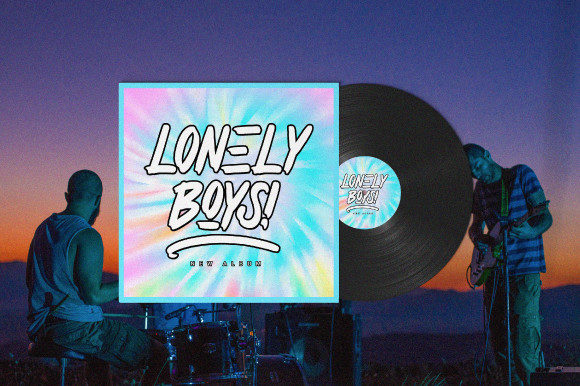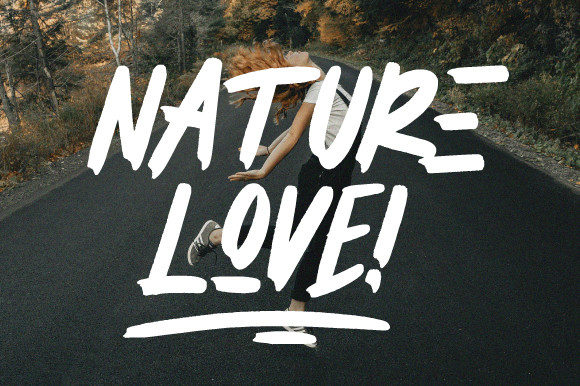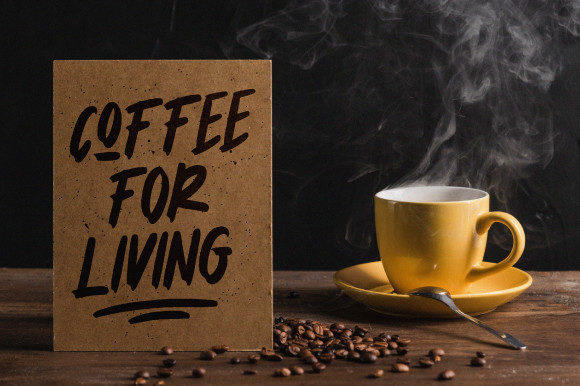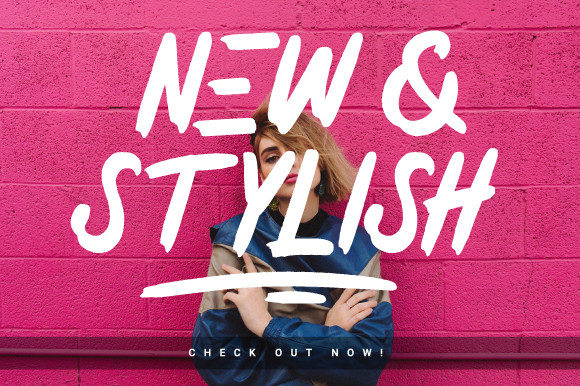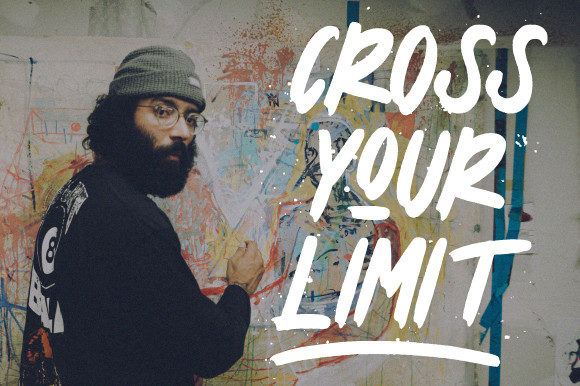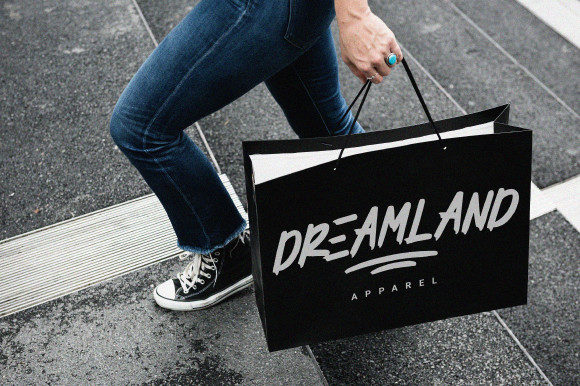
Unleash Your Creativity with Belion Sadge Font: A Brush Font for Stunning Designs
In the realm of digital design, fonts play a pivotal role in conveying messages, evoking emotions, and creating aesthetic appeal. For designers and crafters looking to elevate their projects with a touch of elegance and style, the Belion Sadge font emerges as a remarkable choice. This article delves into the features, benefits, and creative applications of the Belion Sadge – Brush Font, a versatile tool designed to transform your designs into captivating visual experiences.
What is Belion Sadge Font?
Belion Sadge is a fast, textured display font engineered to infuse designs with a stylish and dynamic look. Its unique brush font characteristics make it stand out, offering a fresh alternative to conventional fonts. Whether you’re working on digital projects or print materials, Belion Sadge brings a distinctive flair that can make your creations pop.
Key Features of Belion Sadge Font
- Textured Display Font: The Belion Sadge font boasts a textured appearance that adds depth and a tactile feel to your designs, making them more engaging and visually appealing.
- Swash and Alternative Characters: One of the font’s most creative features is its inclusion of swashes and alternative characters. These elements allow designers to experiment with various stylistic approaches, enhancing the creative potential of their projects.
- Versatility: Belion Sadge is not limited to a specific design genre. Its versatility makes it suitable for a wide range of applications, from elegant posters and eye-catching merchandise to compelling social media posts.
Creative Applications of Belion Sadge Font
The Belion Sadge font is incredibly versatile, making it an excellent choice for various design projects. Here are some of the creative ways you can utilize this brush font:
- Social Media Posts: Elevate your social media presence with stylish and engaging posts that capture the attention of your audience. The Belion Sadge font’s readability and aesthetic appeal make it perfect for creating headlines, quotes, and promotional content.
- Merchandise: From t-shirts and mugs to tote bags and stationery, Belion Sadge can add a unique touch to your merchandise designs. Its textured look translates well on various materials, ensuring your products stand out.
- Posters and Flyers: For print materials, Belion Sadge offers a fresh and modern approach. Use it for event posters, flyers, or any printed material that requires a bold and stylish font to grab attention.
Why Choose Belion Sadge Font?
In a sea of fonts, Belion Sadge distinguishes itself through its unique blend of texture, style, and versatility. Here are a few reasons why designers and crafters are gravitating towards this brush font:
- Unique Aesthetic: The font’s textured and brush-like appearance provides a unique aesthetic that can elevate the look of your designs.
- Enhances Creativity: With its swash and alternative characters, Belion Sadge encourages creativity and experimentation, allowing designers to push the boundaries of their projects.
- Easy to Use: Despite its sophisticated look, Belion Sadge is easy to integrate into various design projects, making it accessible to both beginners and seasoned designers.
| Font Name | Belion Sadge Font |
| Author | Wisnoetype Co |
The Belion Sadge – Brush Font is a powerful tool for designers and crafters aiming to infuse their projects with style, creativity, and a professional edge. Its unique features, versatility, and ease of use make it an excellent addition to any design toolkit. Whether you’re creating social media content, merchandise, or posters, Belion Sadge offers the perfect blend of aesthetics and functionality to bring your visions to life.
Embrace the creative possibilities with Belion Sadge Font and discover how this stylish brush font can transform your designs into stunning visual experiences that captivate and inspire your audience.